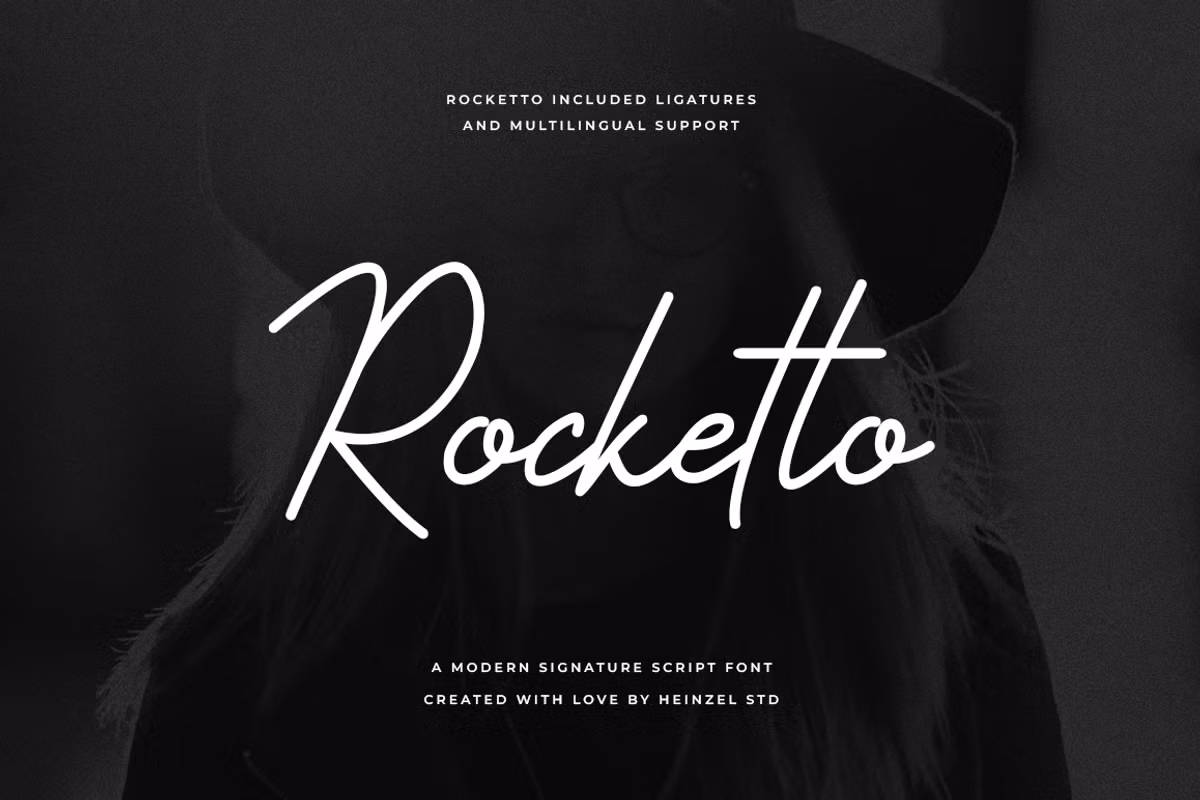
Rocketto Signature Font Free Download is a sophisticated and elegant handwritten script typeface designed to mimic the fluid and natural strokes of a signature. With its graceful curves and smooth flow, this font is perfect for projects that need a personal, stylish touch, such as logos, invitations, branding, and social media graphics.
Its clean, refined design makes Rocketto ideal for both formal and informal uses, adding a touch of class and professionalism to any project. Whether you're crafting a chic wedding invitation, branding a luxury product, or creating a signature-style logo, this font gives your typography a personalized and elegant feel.
Enhance your designs with Rocketto Signature Font Free Download, and create typography that feels authentic, stylish, and full of personality. Perfect for designers looking to add a refined handwritten touch to their creative work.